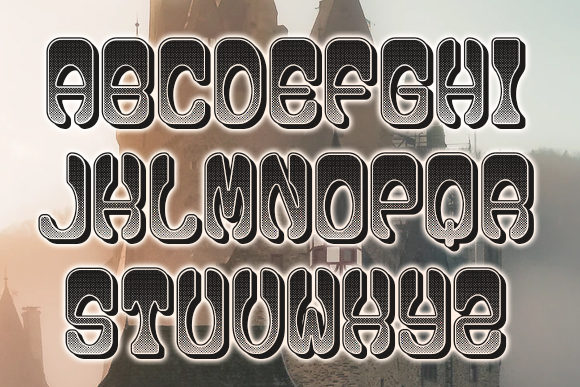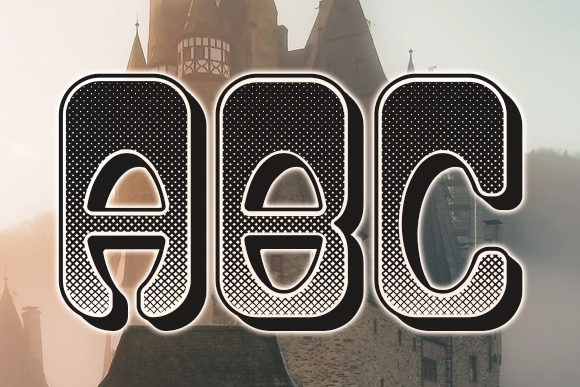
Discover the Charm of Castle Font: A Unique Display Font for Creative Projects
Are you tired of using the same old fonts for your creative projects? Look no further than Castle Font, a fascinating and unconventional display font that’s sure to capture attention. With its quirky charm and versatility, Castle Font is an excellent addition to any designer’s or crafter’s toolkit.
The Story Behind Castle Font
Castle Font is a distinctive display font that boasts a one-of-a-kind personality. Its unusual design makes it perfect for projects that require a touch of whimsy and playfulness. Whether you’re working on a logo, poster, or social media graphic, Castle Font is sure to add a dash of excitement and energy to your design.
What Makes Castle Font So Special?
So, what sets Castle Font apart from other display fonts on the market? Here are just a few features that make it so unique:
- Quirky and Playful Design: Castle Font’s unusual design is sure to turn heads. Its irregular shapes and lines give it a charming, handmade feel that’s perfect for creative projects.
- Versatility: Despite its quirky nature, Castle Font is incredibly versatile. It can be used in a wide range of contexts, from formal titles to casual social media posts.
- High Readability: Despite its unconventional design, Castle Font remains highly readable, even at smaller sizes. This makes it perfect for use in a variety of applications, from logos to headlines.
How to Use Castle Font in Your Designs
Ready to give Castle Font a try? Here are a few ideas for incorporating it into your designs:
- Logos and Branding: Castle Font’s unique design makes it perfect for logos and branding projects. Use it to add a touch of personality to your business’s identity.
- Posters and Flyers: Add a dash of whimsy to your posters and flyers with Castle Font. Its quirky design is sure to grab attention and make your message stand out.
- Social Media Graphics: Use Castle Font to add a touch of personality to your social media graphics. Its high readability makes it perfect for use in Facebook posts, Instagram captions, and more.
Tips for Getting the Most Out of Castle Font
Here are a few tips for getting the most out of Castle Font:
- Experiment with Colors: Castle Font looks great in a variety of colors. Experiment with different hues and combinations to find the perfect look for your design.
- Play with Size and Scale: Don’t be afraid to experiment with different sizes and scales when using Castle Font. Its quirky design looks great at a range of sizes, from small captions to large headlines.
- Pair it with Other Fonts: Castle Font pairs well with a variety of other fonts. Try pairing it with a clean sans-serif font for a bold, contrasting look.
Castle Font is a unique and fascinating display font that’s sure to add a touch of personality to your creative projects. With its quirky design, versatility, and high readability, it’s an excellent choice for designers and crafters looking to stand out from the crowd. So why not give Castle Font a try today and see the difference it can make in your designs?